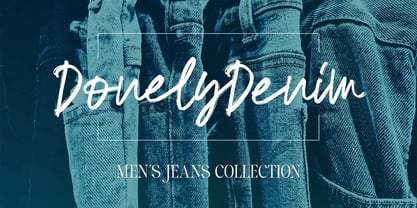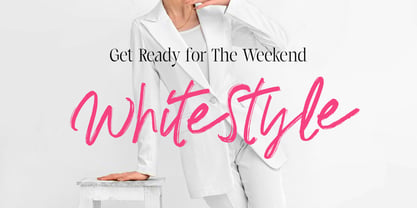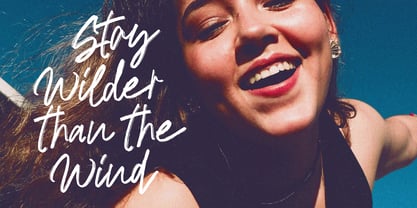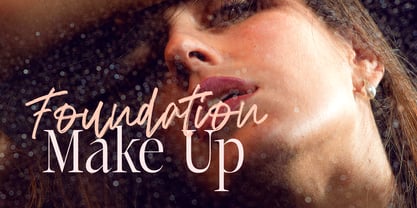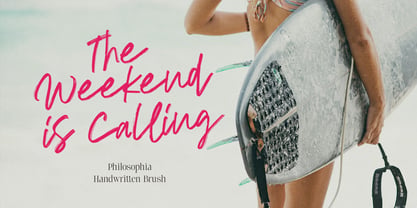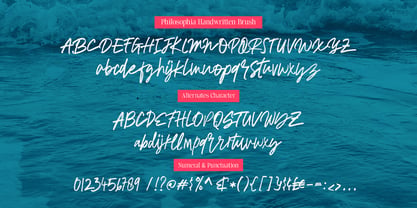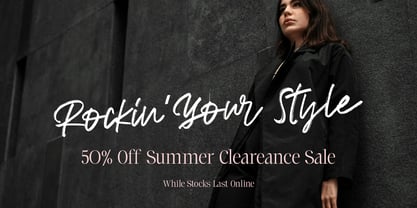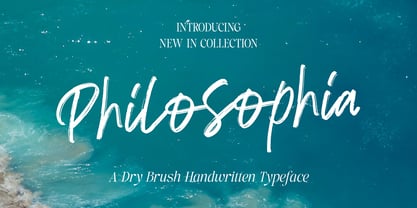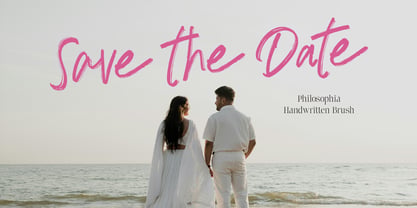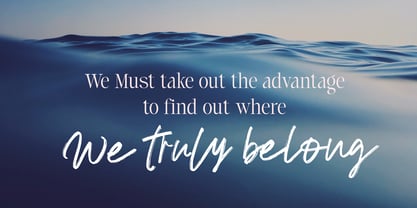
Philosophia
por Godbless Studio
La familia tipográfica Philosophia fue diseñada por Heri Juniawan y publicada por Godbless Studio. Philosophia contiene 1 estilos. Más información sobre esta familia
Introducing Philosophia, handwritten font with brush style and still have their own passion. Made with a dry scratch style but still looks cool and very suitable for use in a variety of promotional, business, and other art needs, such as branding projects, homeware designs, product packaging - or simply as a stylish text overlay to any background image.
Diseñadores: Heri Juniawan
Fundición: Godbless Studio